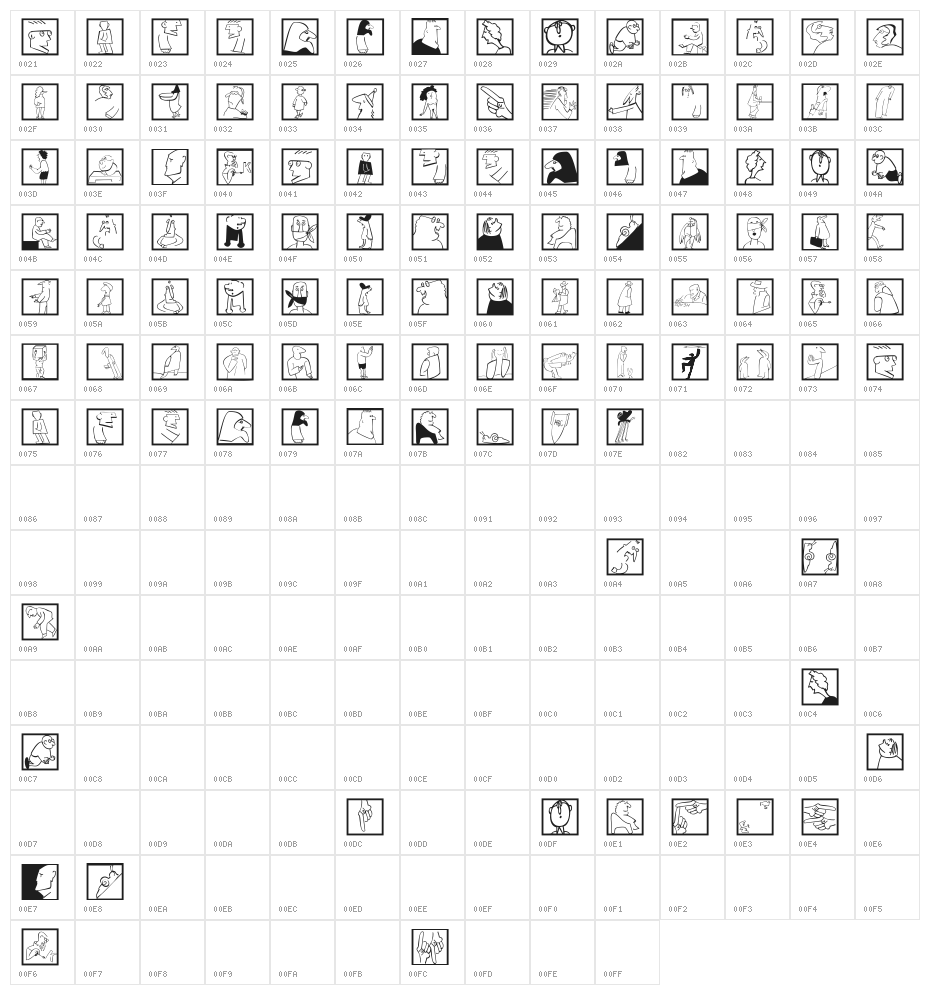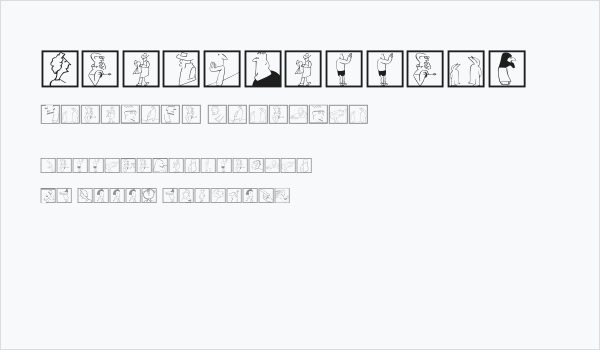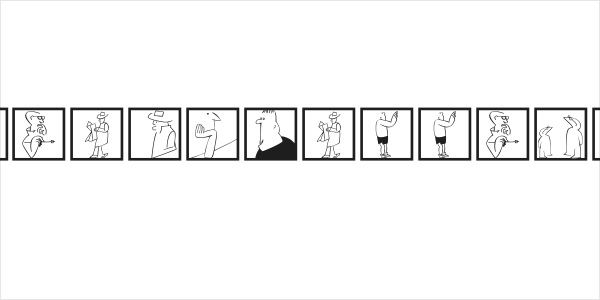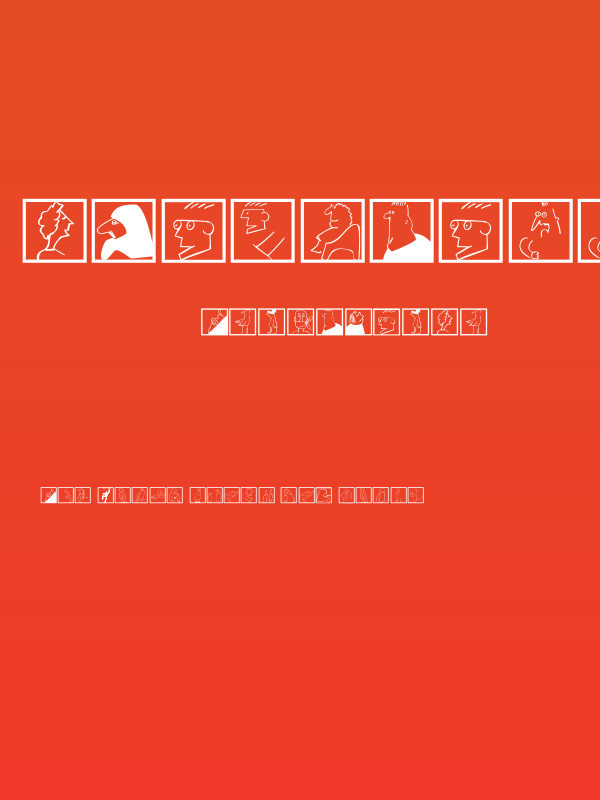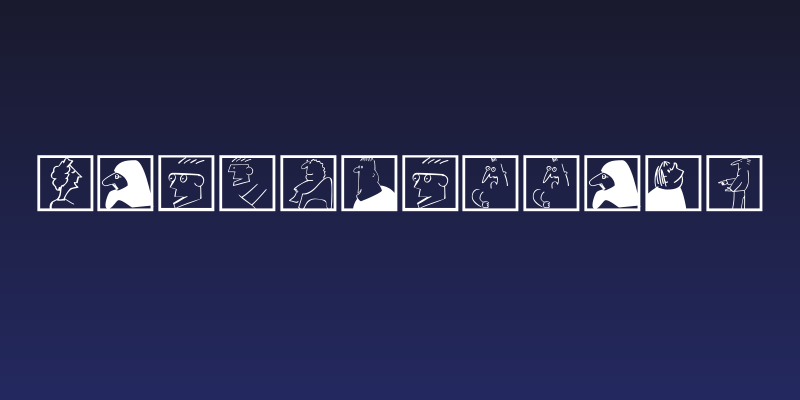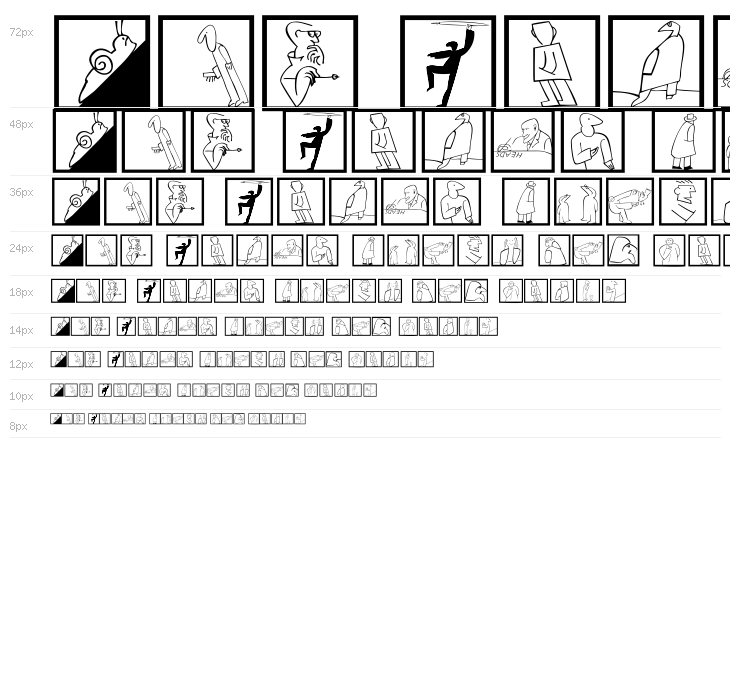
HeadsGallery Font
HeadsGallery Description
| Overall Style | Whimsical, Artistic, Playful |
| Use Case | Logos, Posters, Creative Titles, ChildrenΓ’β¬β’s Materials |
| Proposed Projects | ChildrenΓ’β¬β’s books, comics, creative posters, educational materials, playful branding, art projects. |